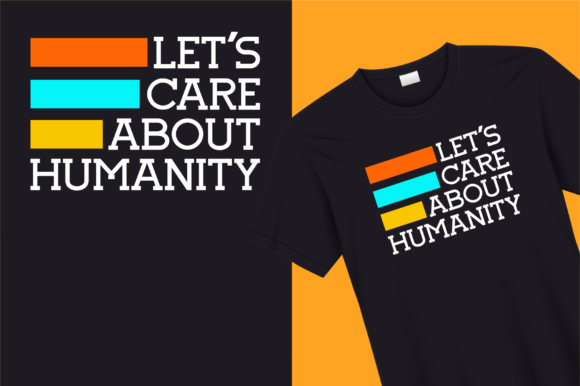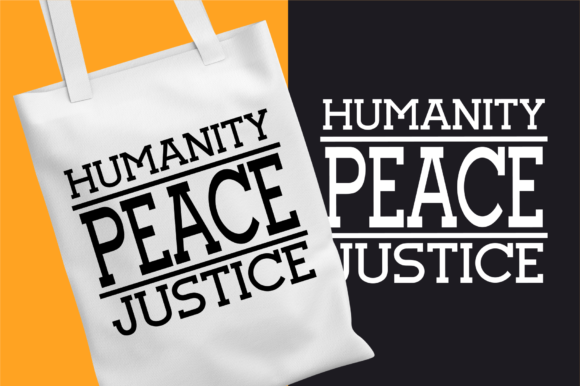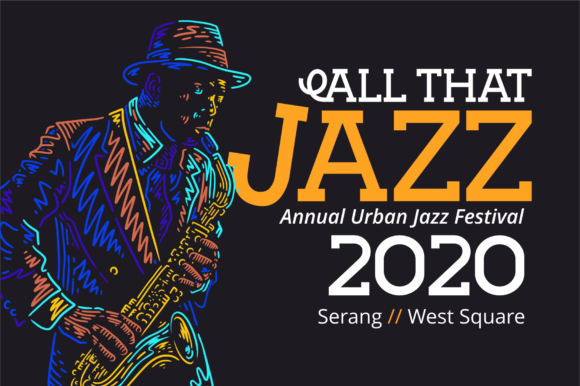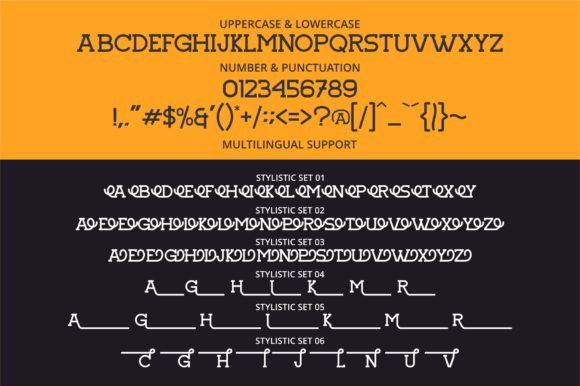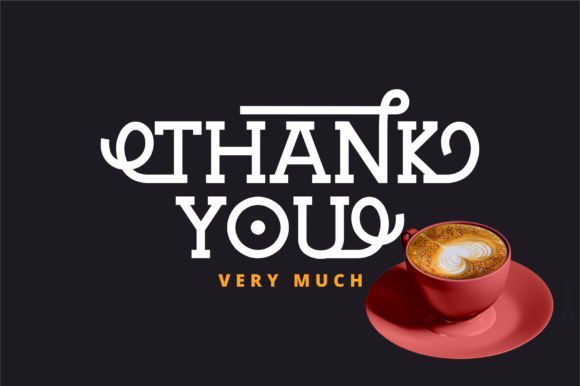
Arbinova Font
ARBINOVA FONT SPECIMEN
Arbinova is a strong slab serif font. With its swash and beautiful arrangement of letters, this typeface will look outstanding in both formal and non-formal designs.